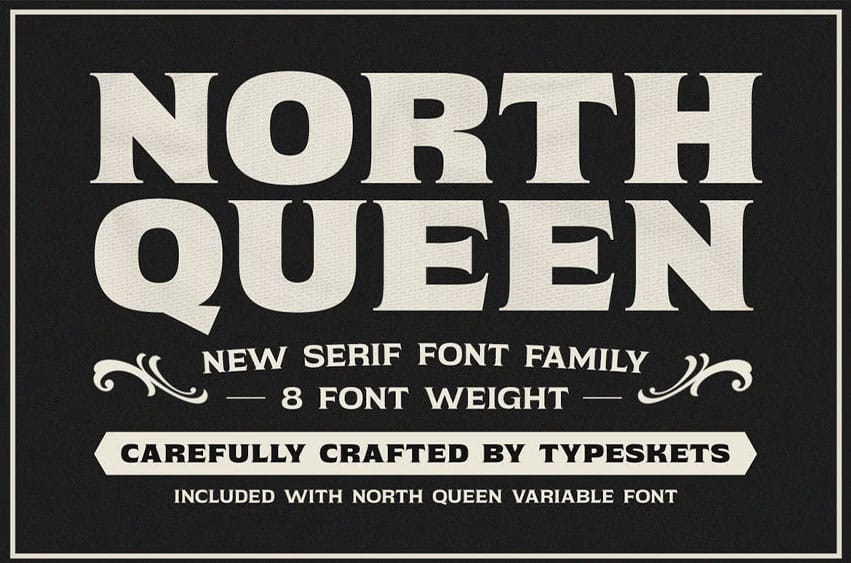
North Queen Font is a classic serif font family inspired by vintage editorial typography and timeless print aesthetics. Designed with strong structure and elegant curves, this font delivers a powerful yet refined presence for both modern and retro design needs.
This font family includes 8 carefully crafted weights, providing flexibility for a wide range of design applications—from bold headlines to refined logotypes. North Queen also comes with a variable font, allowing smooth weight adjustments and greater creative control.
North Queen balances vintage charm with modern usability, making it a versatile choice for designers who seek classic elegance with professional performance.